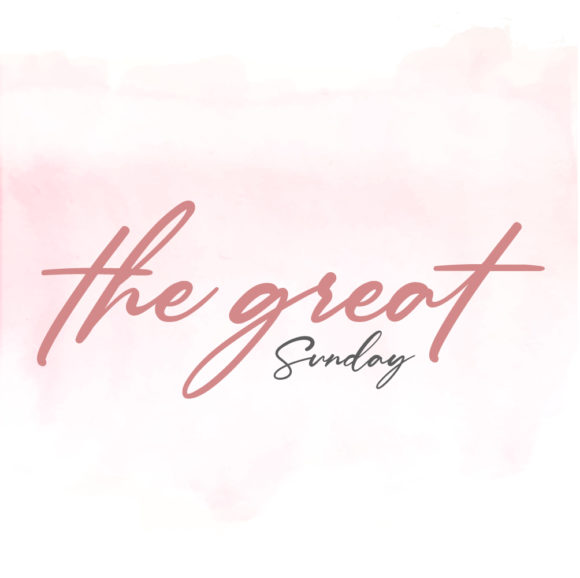
Introducing The Great Sunday Font, a calligraphy masterpiece inspired by the serene beauty of a village Sunday morning. This script font, crafted by Pen Culture, captures the essence of tranquility and charm, making it the perfect choice for designers seeking an elegant and timeless typeface.
With its smooth and graceful curves, The Great Sunday Font evokes a sense of nostalgia and warmth. Each letter dances across the page like a gentle breeze, carrying with it the memories of lazy Sundays spent in the company of loved ones. Its delicate strokes and intricate details add a touch of sophistication to any design, making it ideal for wedding invitations, greeting cards, branding projects, and more.
Step into a world of possibilities with The Great Sunday Font. Its versatility knows no bounds, adapting seamlessly to a wide range of design styles. From classic and traditional to modern and contemporary, this font blends effortlessly, adding a touch of timeless elegance to your creations. Whether you're designing a logo, a poster, a social media post, or anything in between, The Great Sunday Font will elevate your work to new heights.
Unleash your creativity and embark on a journey of artistic expression with The Great Sunday Font. Its enchanting charm and captivating beauty will leave a lasting impression on your audience, ensuring that your designs stand out from the crowd. Let your imagination run wild as you explore the endless possibilities this font has to offer.